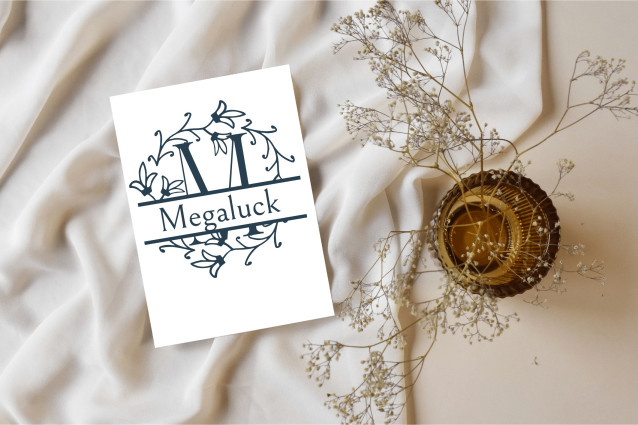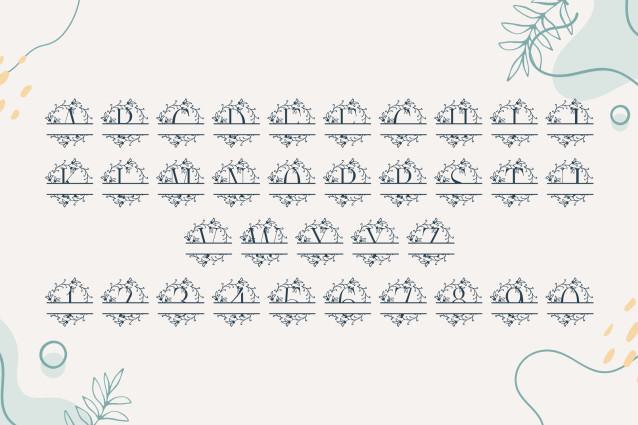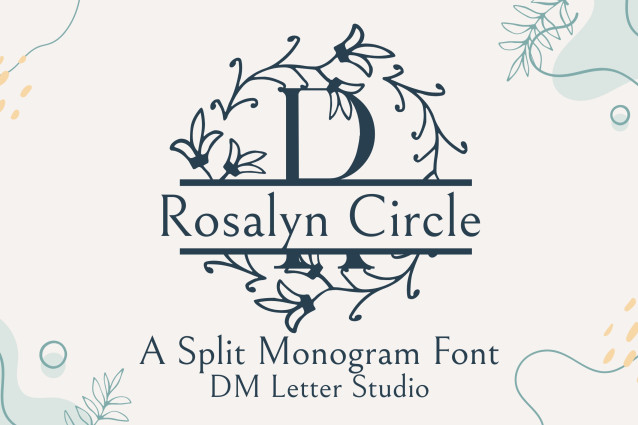
Rosalyn Circle Split Monogram Font
Rosalyn Circle Split Monogram is an elegant serif font featuring a split-letter design framed inside a delicate circular wreath of roses and foliage. This font blends classical charm with soft botanical flourishes, offering a refined canvas for personalized names, initials, and decorative labels. Ideal for weddings, gifts, Cricut crafts, and feminine branding.